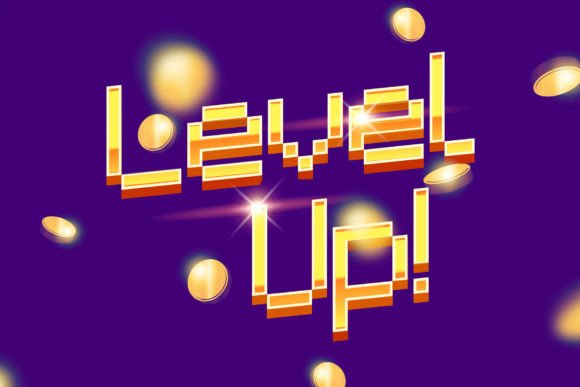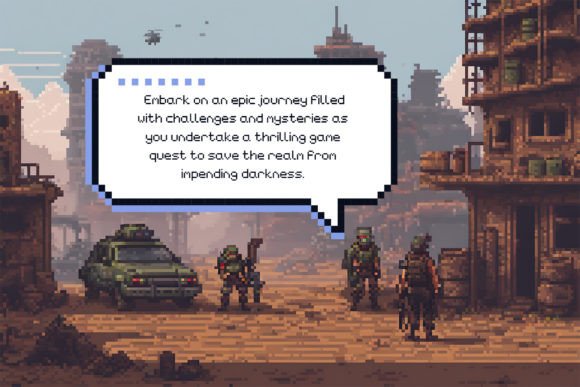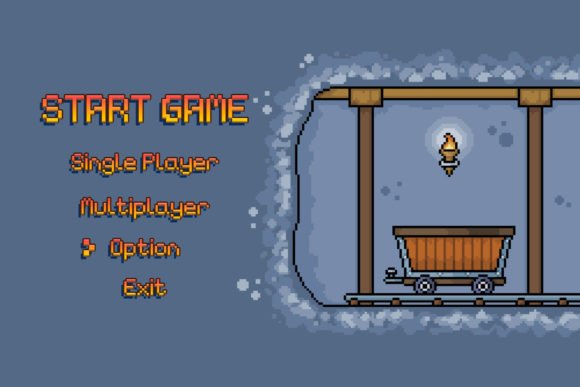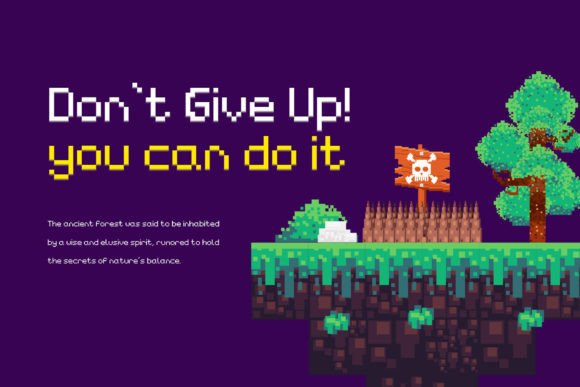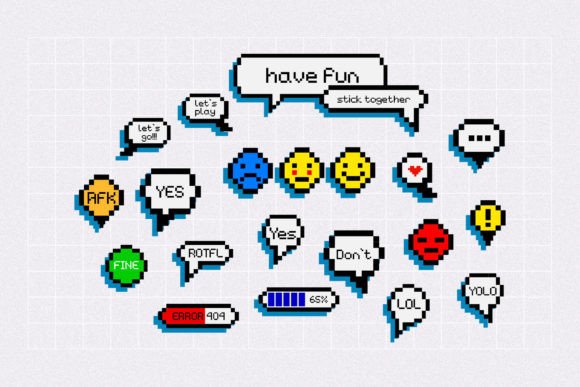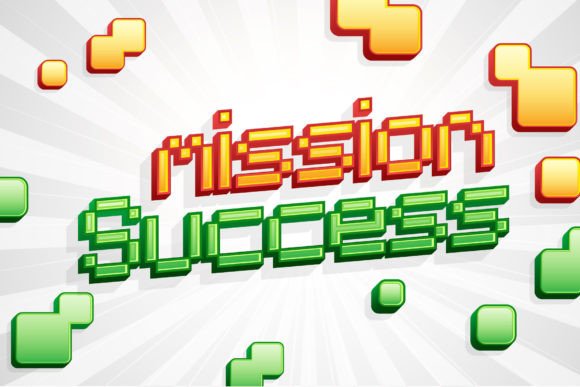
Introduction to Lowres Pixel Font Font
Fonts play a crucial role in design, and the Lowres Pixel Font font is a typeface that brings both character and versatility to any project. Whether you’re working on a branding project, a website, or a print design, the Lowres Pixel Font font offers a unique style that can elevate your work.
Lowres Pixel is an adorable and charming pixelate font that evokes a sense of playful nostalgia.
Drawing inspiration from retro video games and pixel art, each letter in Lower Pixel is intricately crafted with pixelated precision With its blocky and endearing appearance, this typeface brings a sense of whimsy and innocence to any design.
Key Features of Lowres Pixel Font Font
Why Choose Lowres Pixel Font Font?
The Lowres Pixel Font font is more than just a typeface – it’s a design tool that helps you communicate your message with style and clarity. Its unique character set and versatile design make it suitable for a wide range of applications, from elegant invitations to bold headlines.
With its carefully crafted letterforms and balanced proportions, the Lowres Pixel Font font ensures readability and visual appeal across all mediums.
What makes Lowres Pixel Font font special?
The Lowres Pixel Font font stands out with its unique design, exceptional readability, and versatility across various design applications.